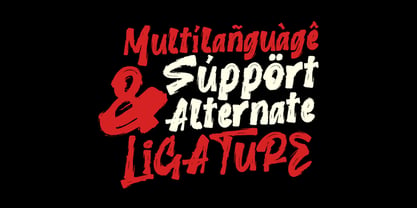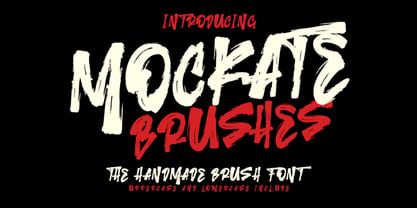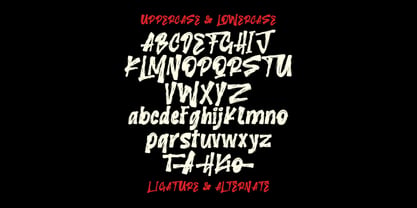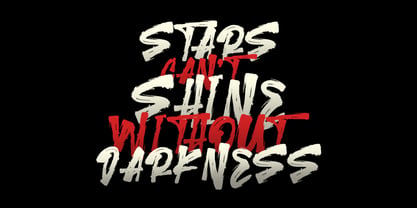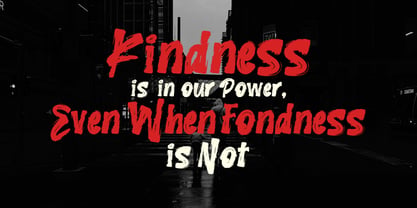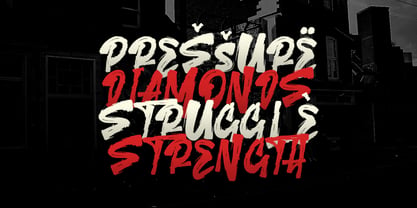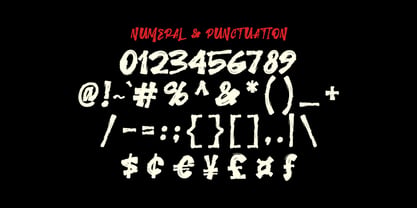
MC Mockate
by Maulana Creative
The MC Mockate Font Family was designed by Gilang Maulana and published by Maulana Creative. MC Mockate contains 1 styles. More about this family
Give your designs an authentic brush handcrafted feel. "Mockate Brushes Handmade Font" is perfectly suited to signature, stationery, logo, typography quotes, magazine or book cover, website header, flyer, clothing, branding, packaging design and more.